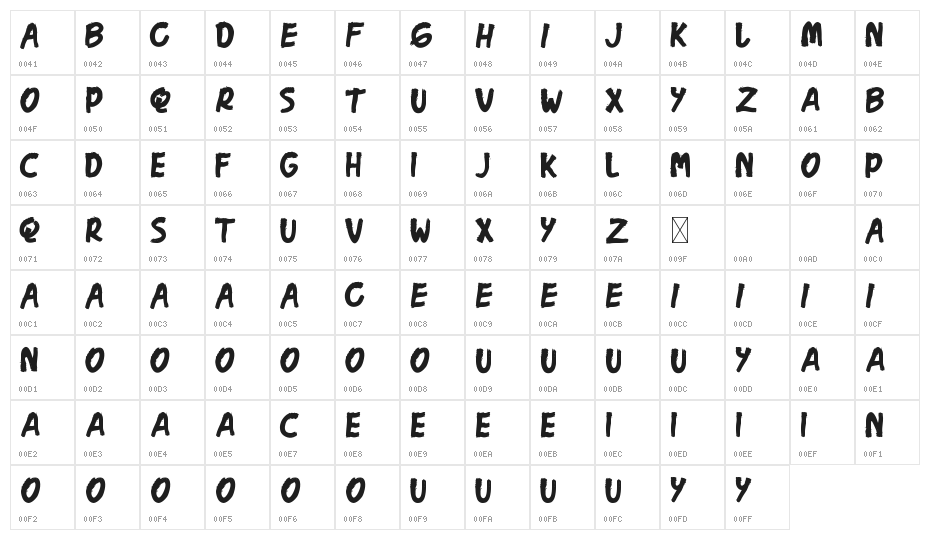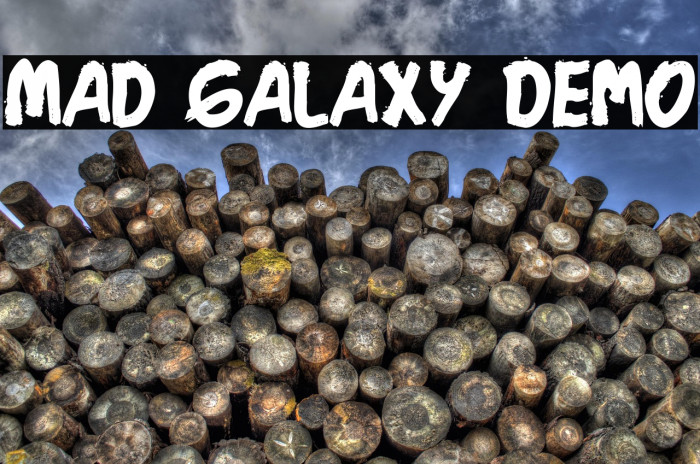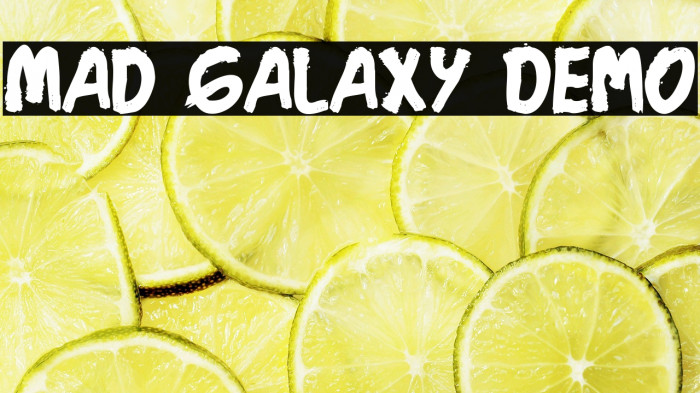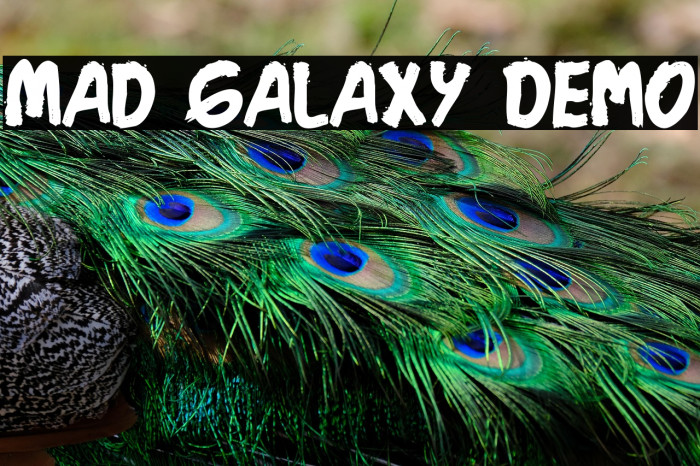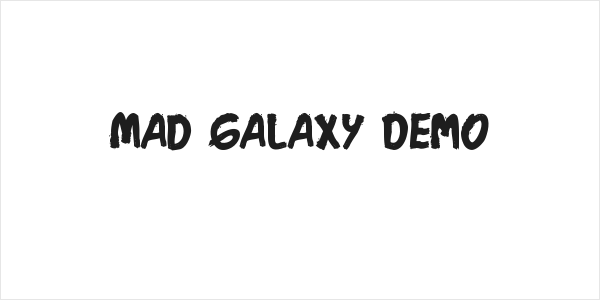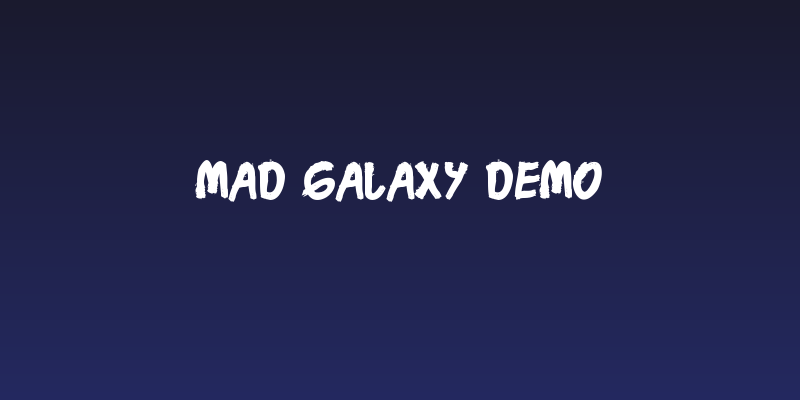
Mad Galaxy Demo Font
Mad Galaxy Demo Description
This font features a bold and expressive style, characterized by its brush-like strokes that give it a dynamic and energetic appearance. The letters are slightly irregular, adding a sense of movement and spontaneity. The uppercase letters are prominent and impactful, making them ideal for attention-grabbing headlines. The lowercase letters maintain the same boldness, ensuring consistency throughout. The numbers and special characters are crafted with the same brushstroke effect, providing a cohesive look across all elements. This font's unique style makes it suitable for projects that require a strong visual impact and a touch of creativity.